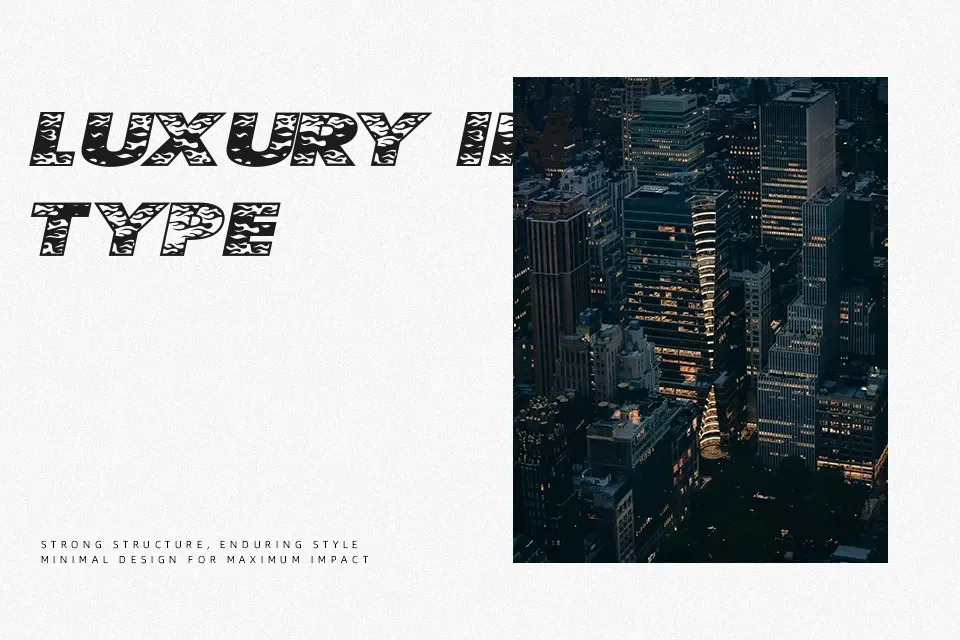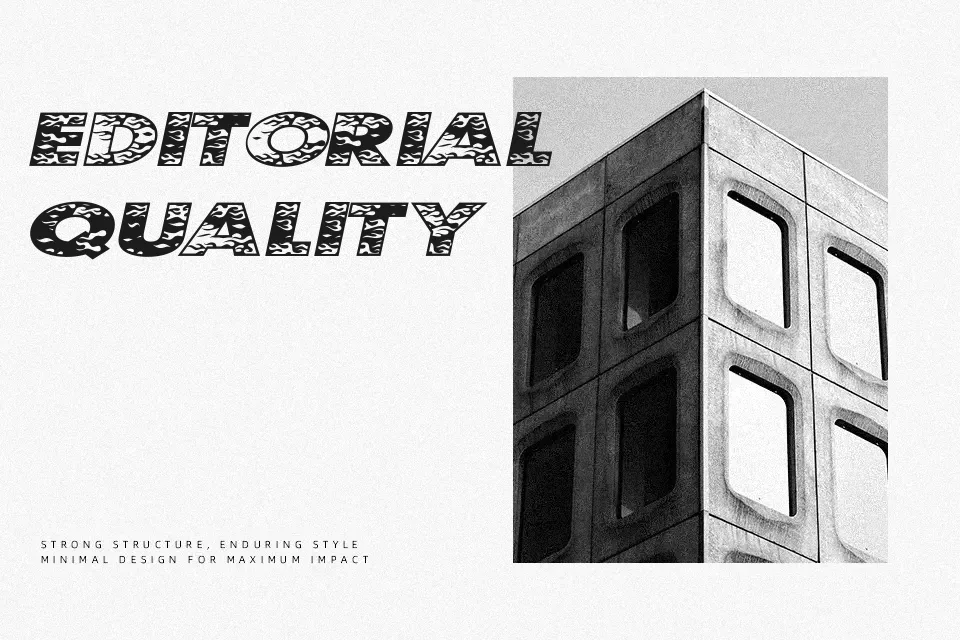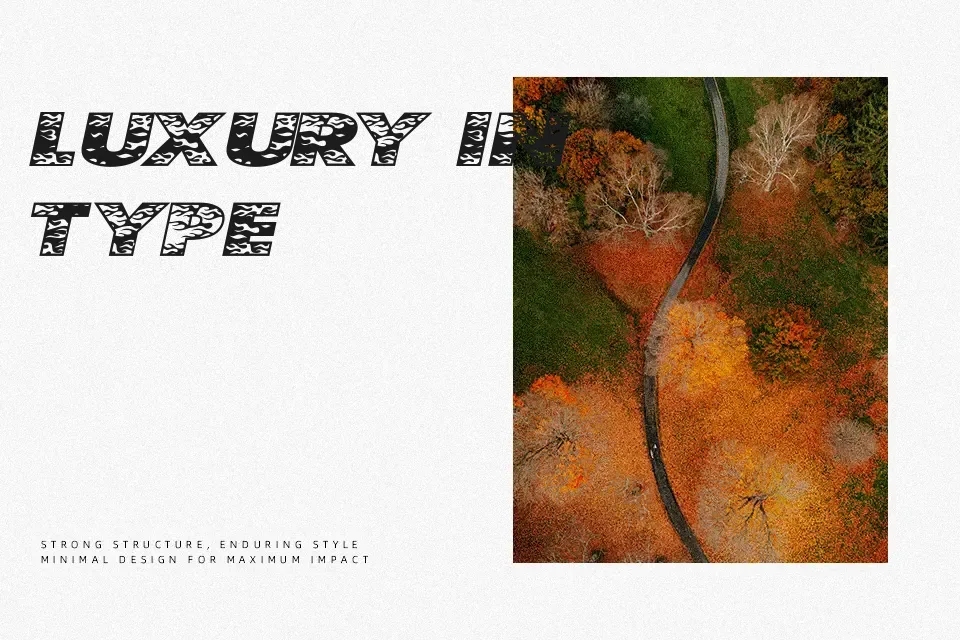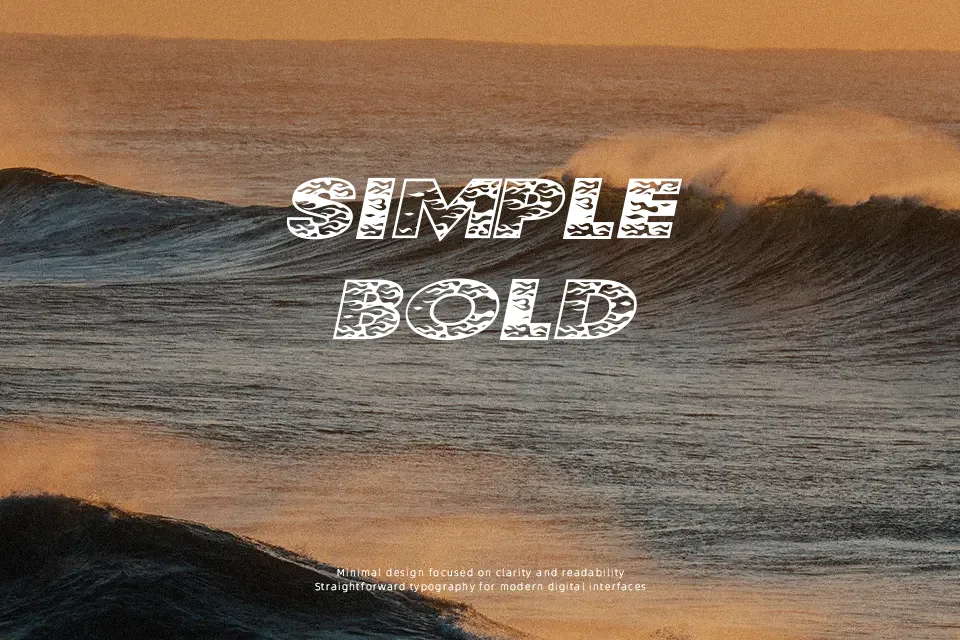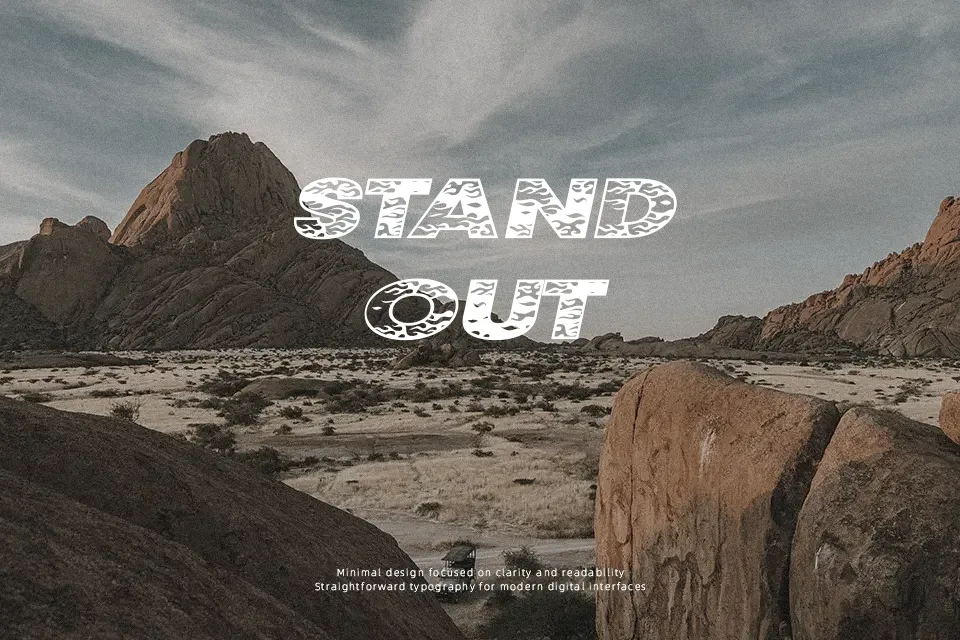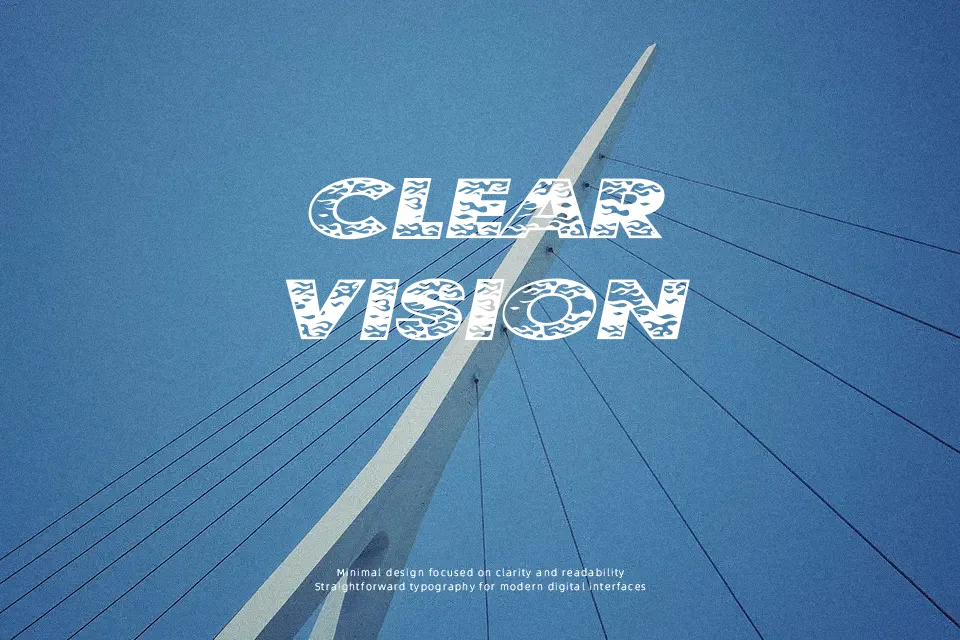
Kustom Kar Font
Designed by Typodermic Fonts
Kustom Kar leans on thick strokes, compressed spacing, and slightly uneven contours that mimic brush-painted hot rod graphics. The letters feel heavy and aggressive, with a textured, worn look that suits loud, decorative layouts more than restrained design. It works well on car show flyers, tuning shop wordmarks, and social graphics tied to motorsport or rockabilly themes, especially at large sizes where the gritty detailing can breathe. At smaller scales, the dense shapes become harder to parse, so it struggles in longer copy or information-heavy layouts. Choose it when you need attitude and nostalgia, avoid it when clarity and neutrality are the priority. [fontmirror](https://www.fontmirror.com/kustom-kar)
automotive show posters
custom garage or tuning shop logos
retro motorsport social media graphics
formal corporate branding
minimalist editorial layouts
small UI labels or captions